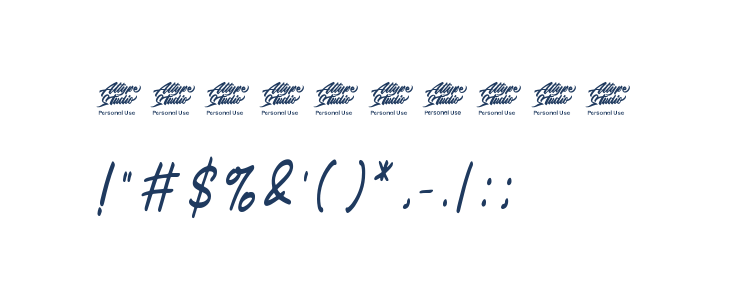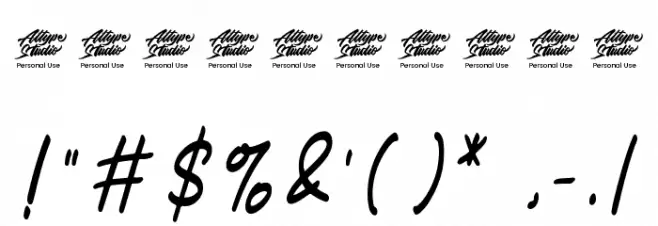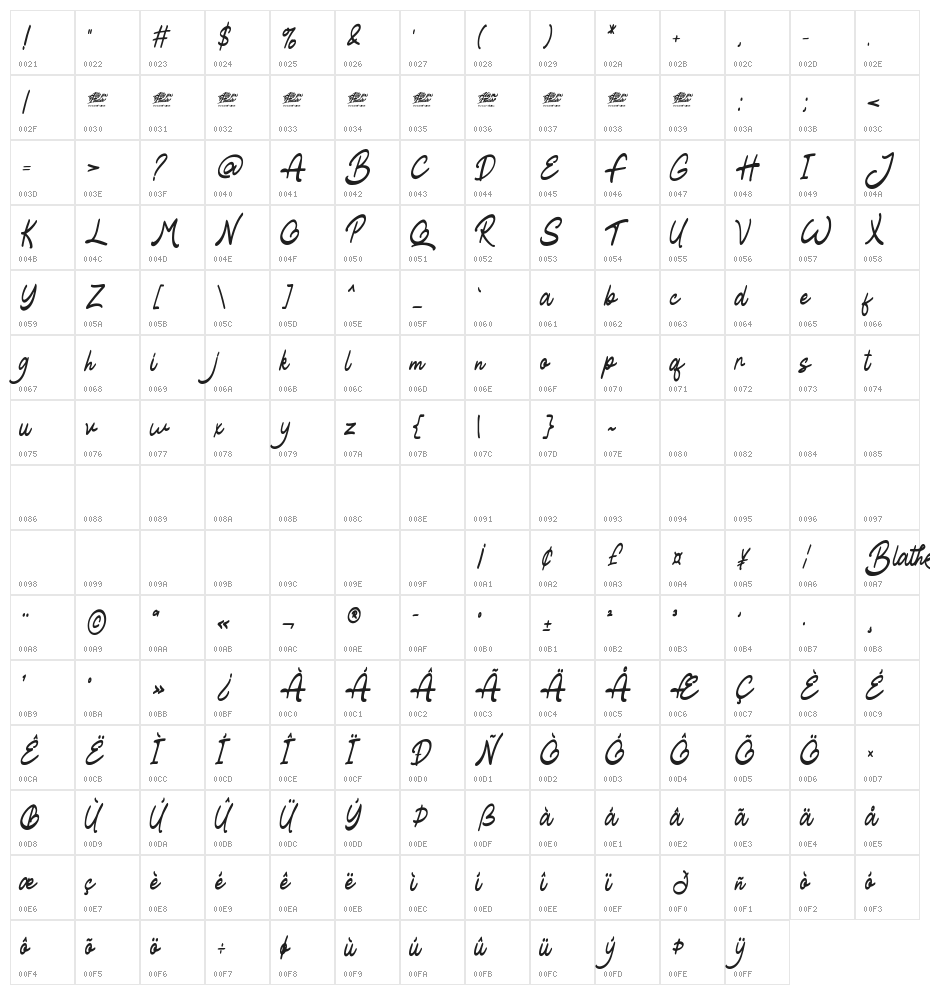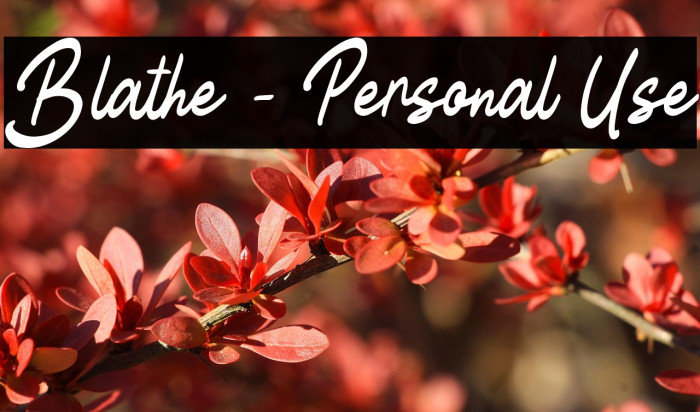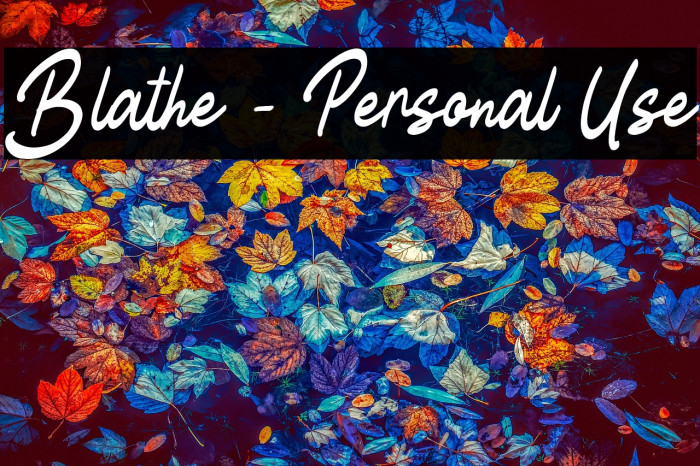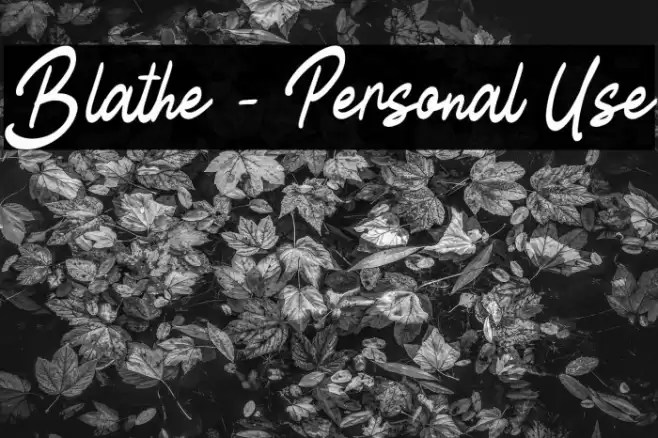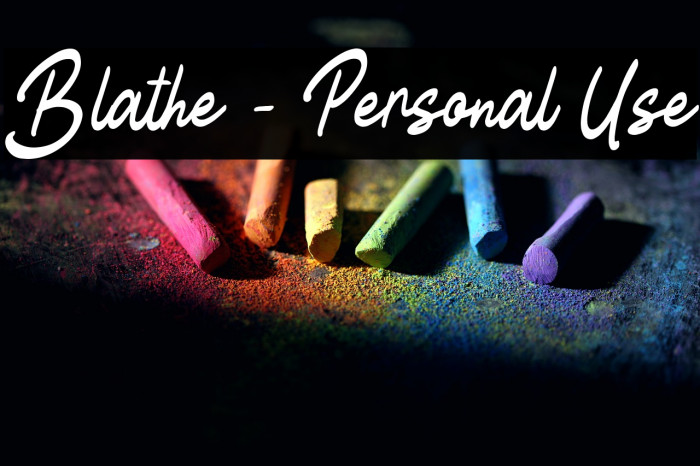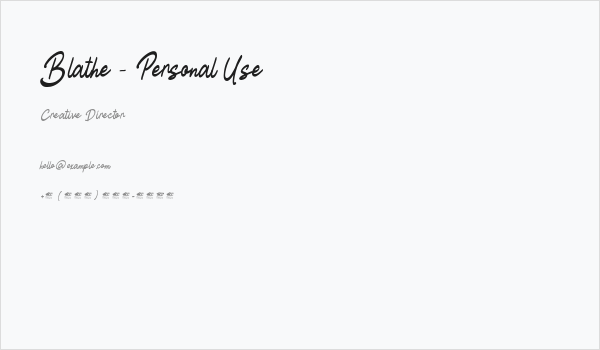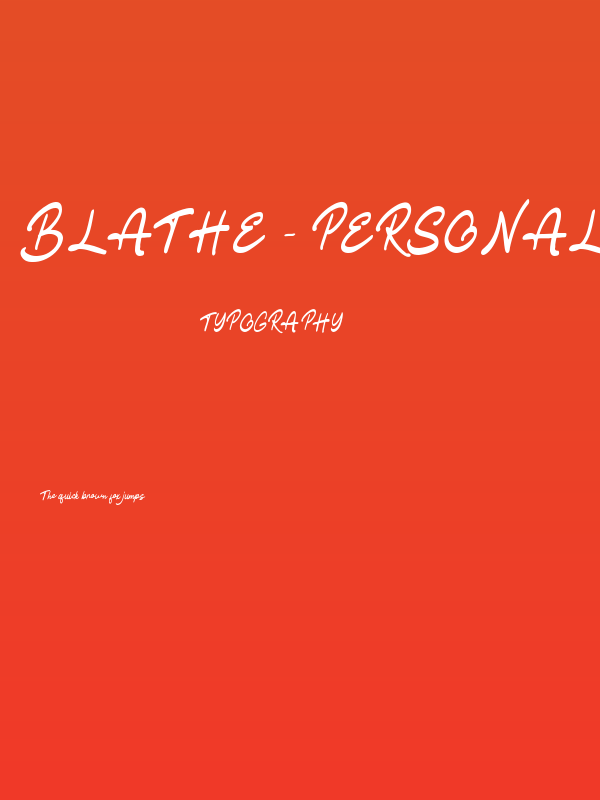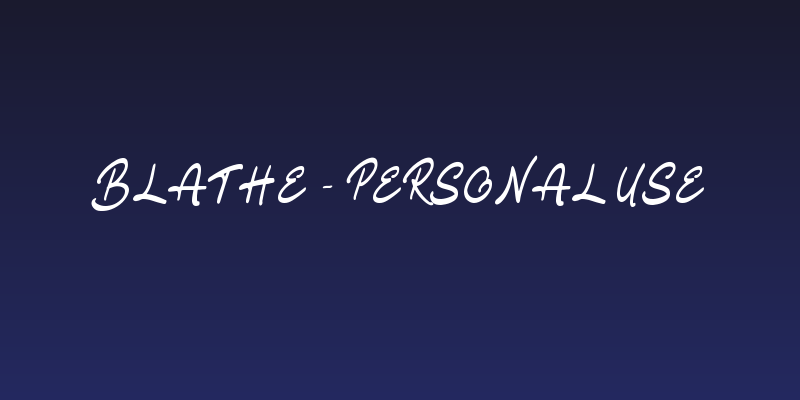
Blathe - Personal Use Font
Blathe - Personal Use Description
This font features a flowing, cursive style that exudes elegance and sophistication. The uppercase letters are bold and slightly slanted, giving a sense of movement and fluidity. The lowercase letters maintain a consistent style with smooth curves and connected strokes, enhancing the script-like appearance. The numbers and special characters are designed to match the overall aesthetic, with a playful yet refined look. This font is ideal for projects that require a personal touch, such as invitations, greeting cards, or branding materials. Its handwritten quality adds a unique charm, making it stand out in any design.
| Proposed Projects | Ideal for invitations, greeting cards, branding materials, and any project requiring a personal touch. |